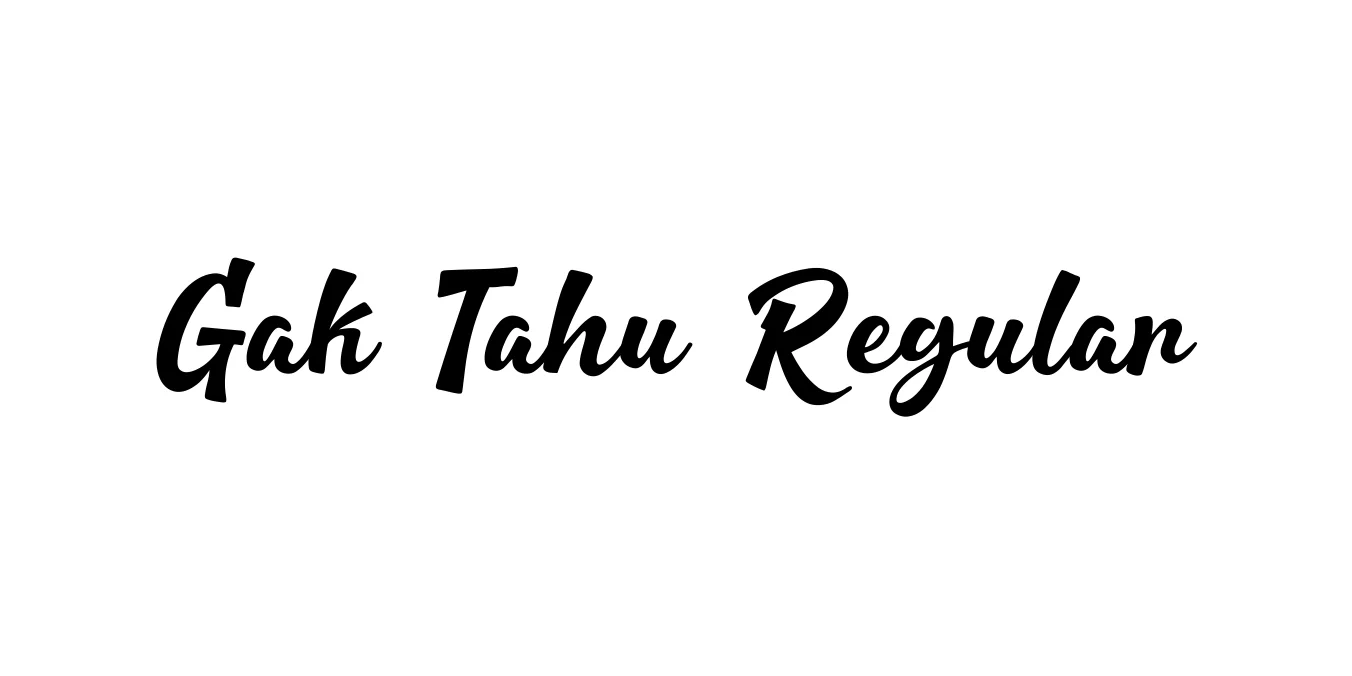
Gak Tahu Regular
Designed by Gak Tahu Studio
| Font Name | Gak Tahu |
| Category | Script / Brush |
| Designer | Gak Tahu Studio |
Gak Tahu Regular is a contemporary brush script font that captures the essence of spontaneous, expressive handwriting. Characterized by its fluid strokes and natural texture, this font provides an authentic, hand-painted aesthetic that stands out in both digital and print media. It is particularly popular among designers looking to add a personal, human touch to their creative projects without sacrificing readability or professional appeal.
Originally developed to bridge the gap between traditional calligraphy and modern graphic design, Gak Tahu Regular has gained significant traction for its versatile character set and rhythmic flow. Its energetic movement makes it an excellent choice for everything from bold headline typography to intricate decorative accents, ensuring a dynamic visual impact across various stylistic contexts.
Gak Tahu Regular Best Uses
Perfect for creating unique and memorable logos with a hand-drawn feel.
Ideal for eye-catching Instagram quotes and engaging post graphics.
Great for t-shirt prints, hoodies, and street-wear merchandise.
Adds a personalized, informal touch to modern wedding invitations and cards.